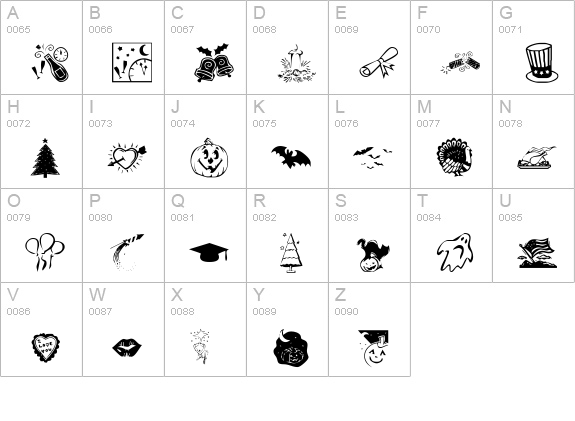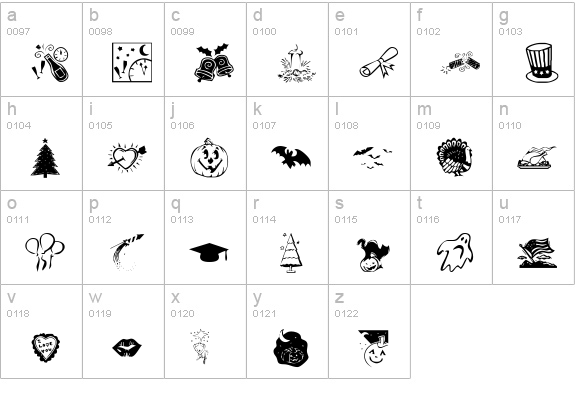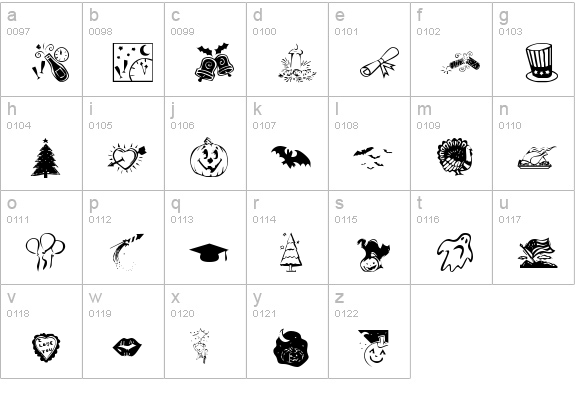
KR Pick A Holiday Font Details
Introducing KR Pick A Holiday font, a whimsical and playful typeface perfect for adding a touch of festive charm to your designs. This delightful font features unique characters with a hand-drawn feel that exudes holiday cheer. Whether you're creating greeting cards, invitations, or party decorations, KR Pick A Holiday font is sure to bring a touch of joy to your projects. And the best part? KR Pick A Holiday font is available for free download at FontsMarket.com! This means you can easily add this fun and festive font to your collection without any cost. So go ahead and spread some holiday cheer with KR Pick A Holiday font today!